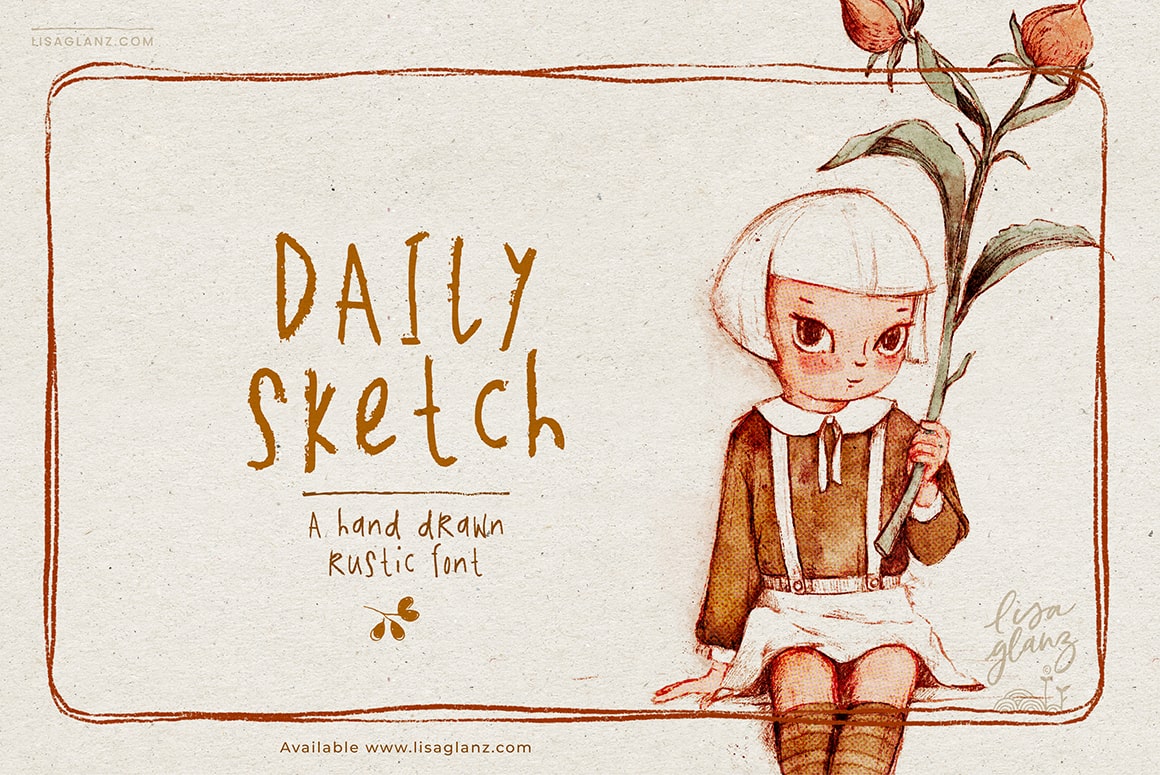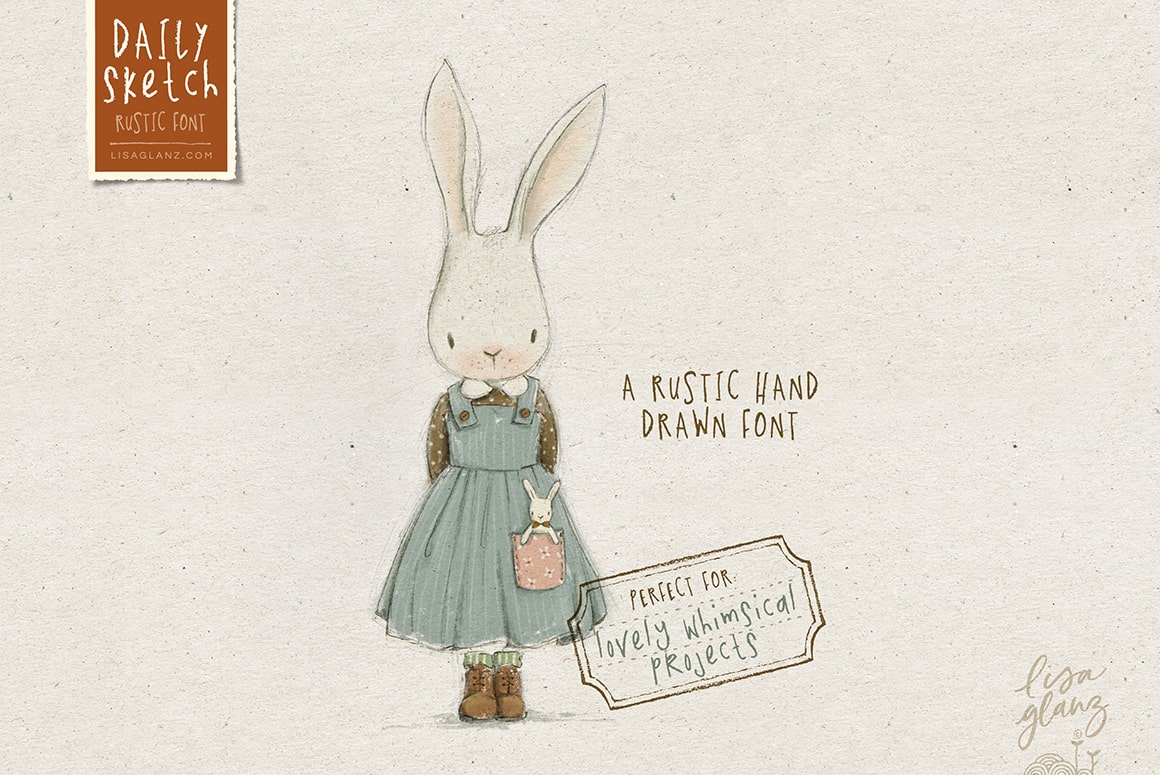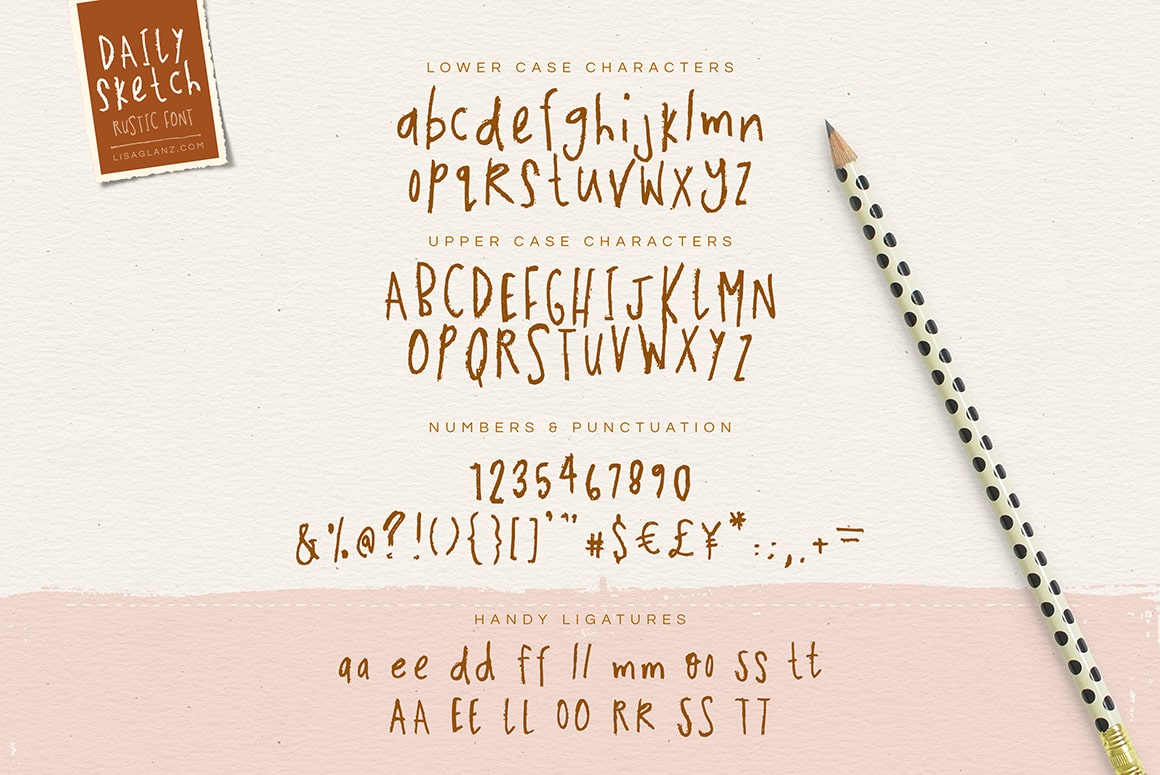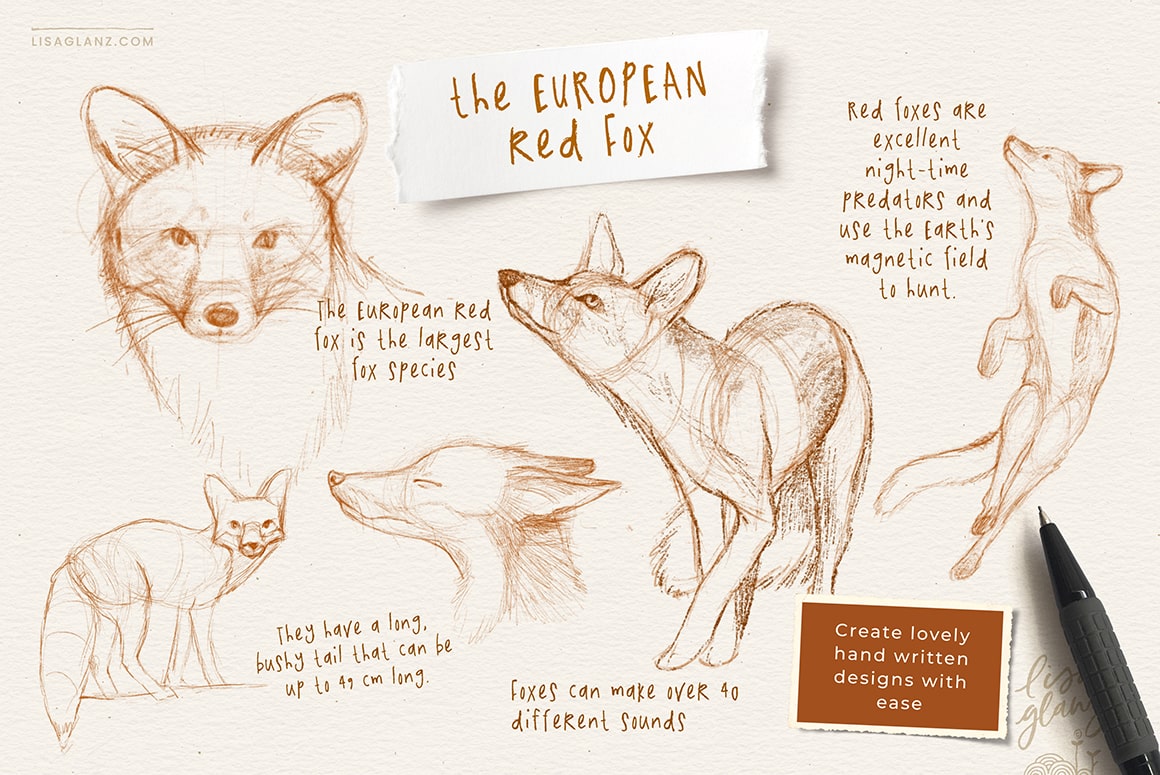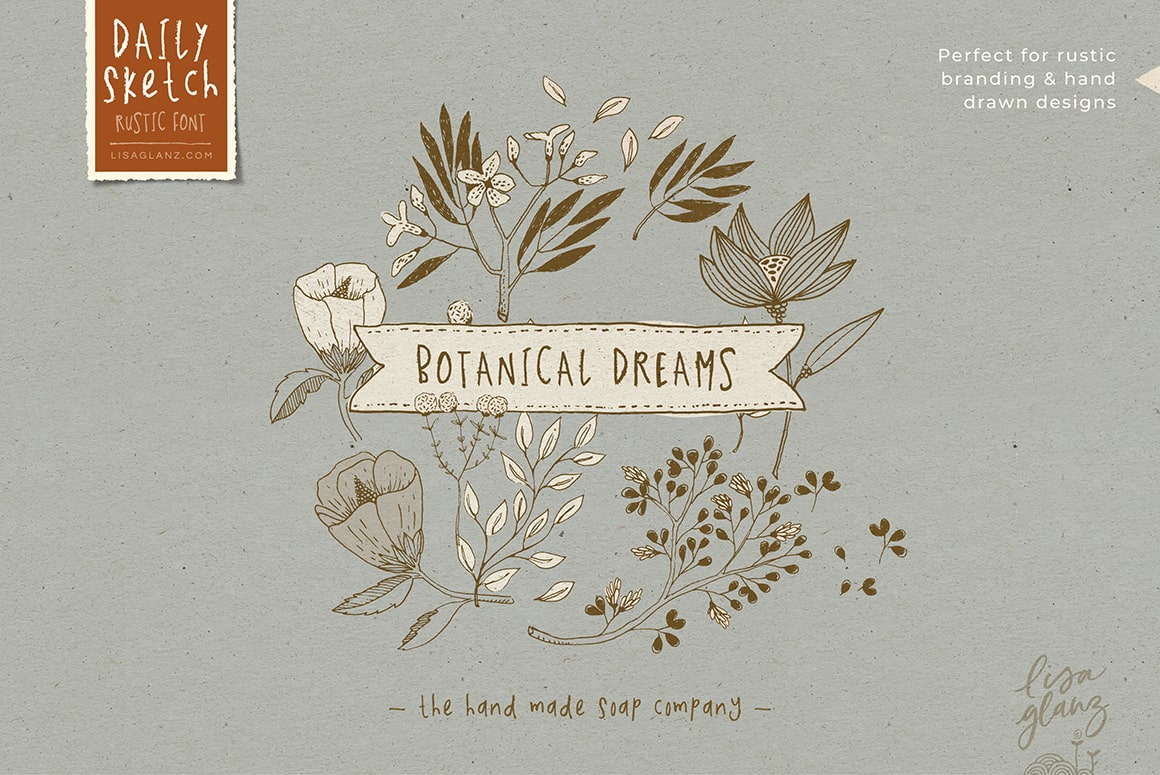
A yummy rustic hand drawn font perfect for whimsical projects!
A sweet rustic hand lettered font bursting with imperfections and cuteness. The font includes some Opentype ligatures for extra quirk.